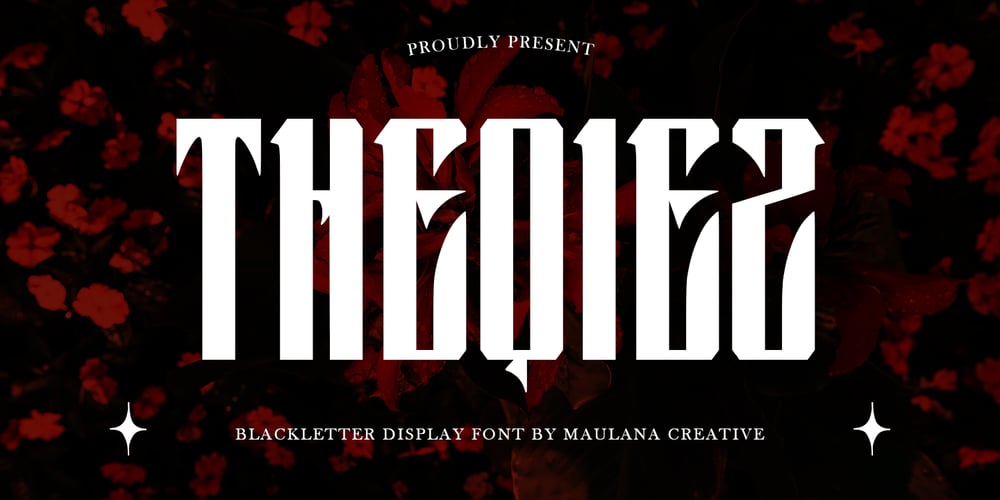
MC Theqiez Font Family was designed by Gilang Maulana and published by Maulana Creative. MC Theqiez contains 1 styles and family package options. Theqiez blackletter display font. Heavy stroke, vintage character with alternates. To give you an extra creative work. Theqiez blackletter display font support multilingual language. This font is good for logo design, Social media, Movie Titles, Books Titles, a short text even a long text letter and good for your secondary text font with script or serif. Make a stunning work with Theqiez blackletter display font.Cheers, Maulana Creative